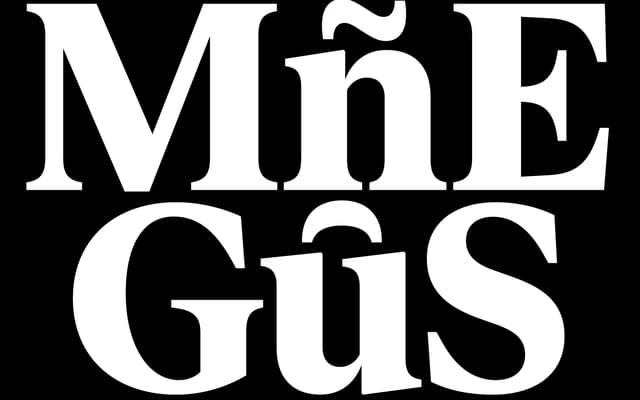
FK Roman Standard
Florian Karsten · 2020
A neutral text serif by Florian Karsten, drawn from the Times New Roman tradition and sized to pair directly with FK Grotesk Neue.
Vertical metrics are matched exactly to FK Grotesk Neue, making the two families a ready-made workhorse combination for editorial and utility work. The design draws on newspaper typography conventions without trying to depart from them, landing in familiar and reliable territory. Coverage includes Latin Extended-A and Vietnamese, covering Western, Central and Southeastern European languages.
Inspired by Times New Roman, a transitional serif with vertical metrics calibrated to pair with FK Grotesk Neue; sits in the workhorse newspaper-derived tradition.